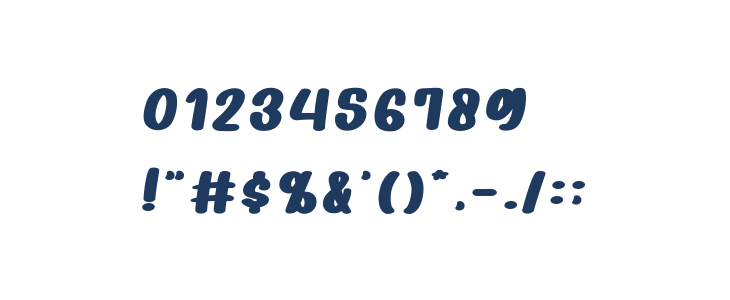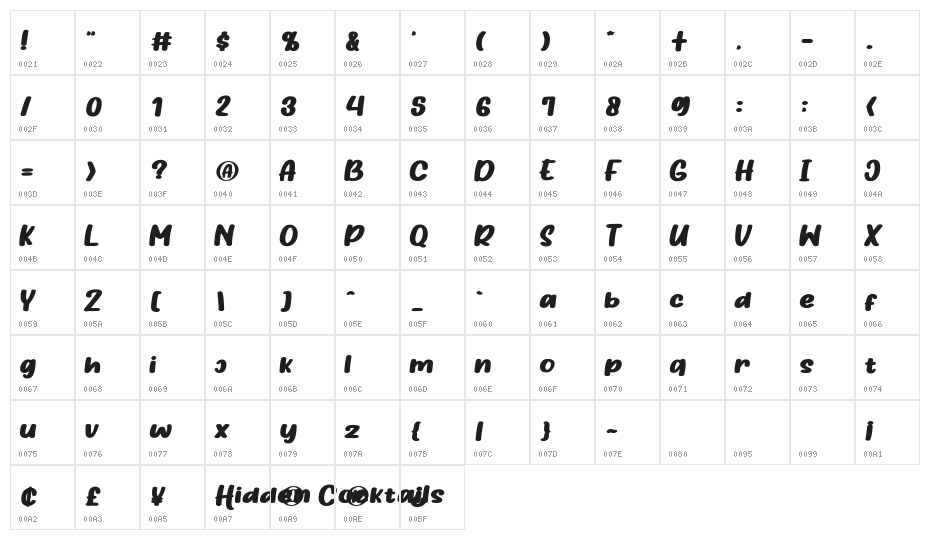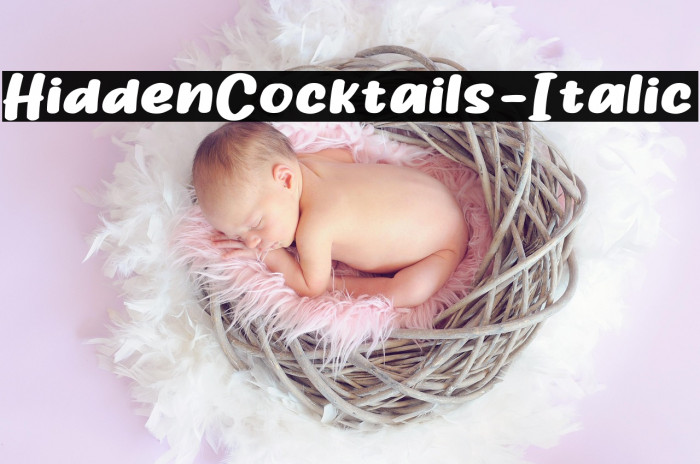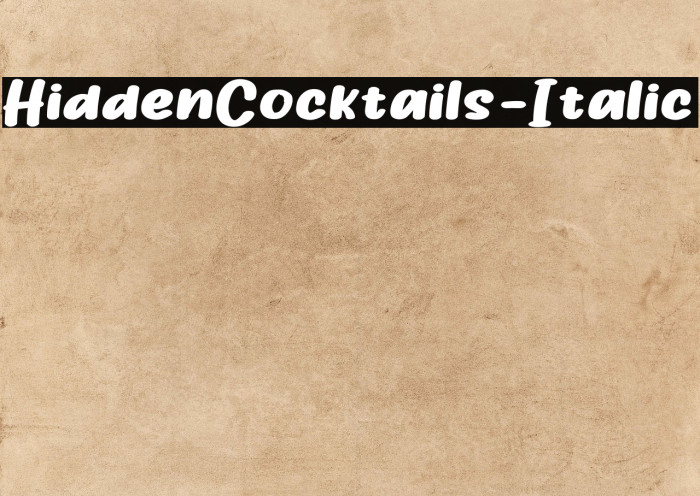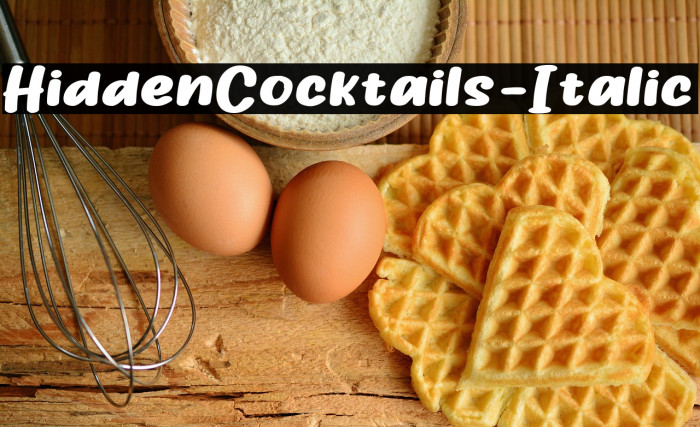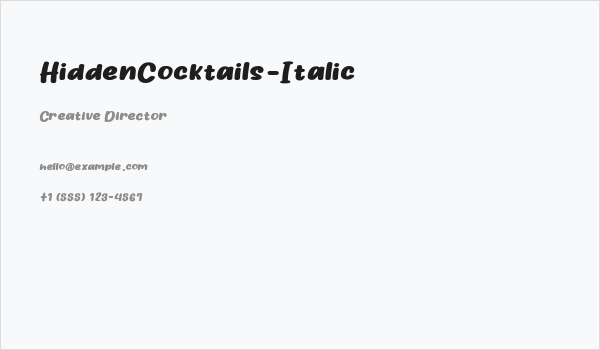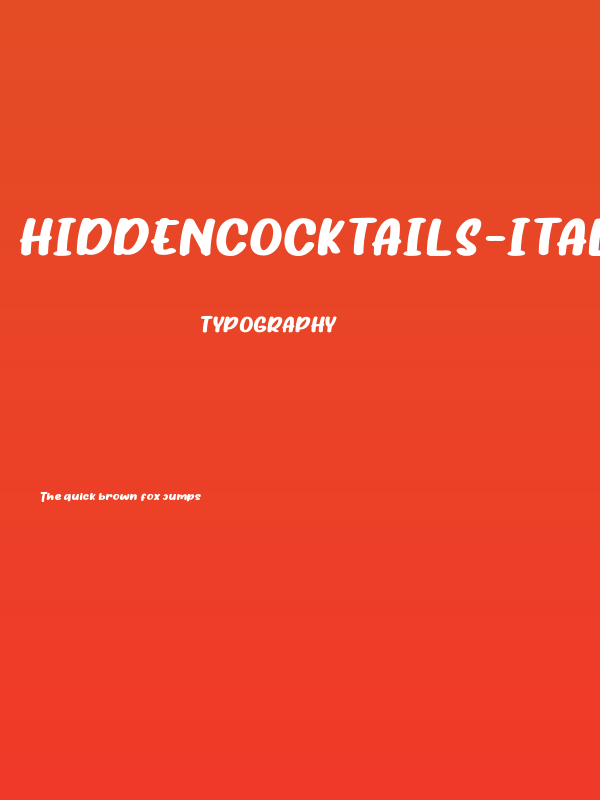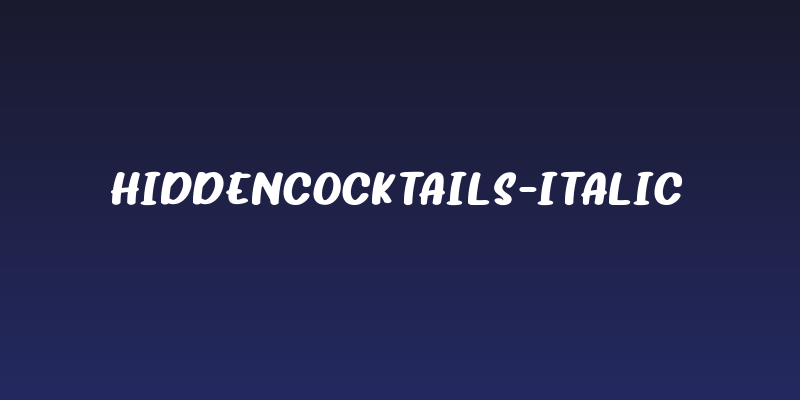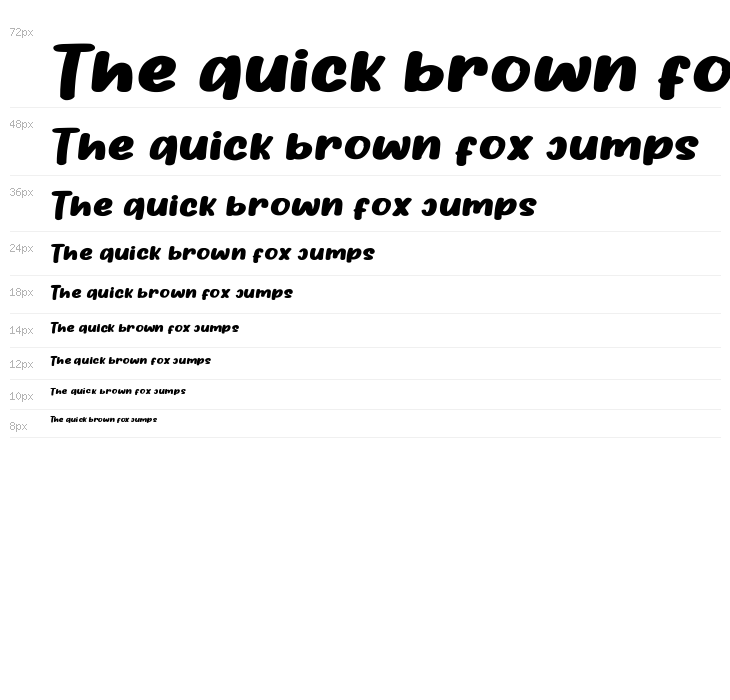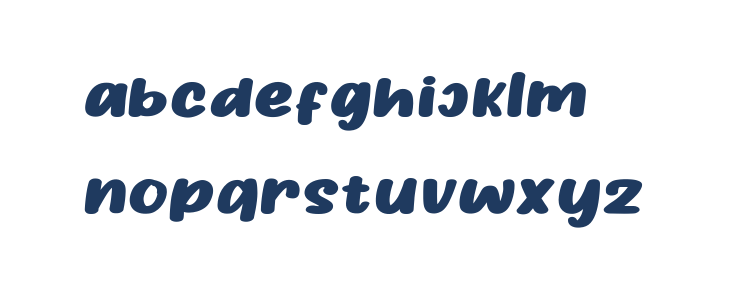
HiddenCocktails-Italic Font
HiddenCocktails-Italic Description
This font features a bold and playful script style with a distinctive italic slant. The characters are rounded and have a smooth flow, giving them a casual and friendly appearance. The uppercase letters are slightly larger and more pronounced, while the lowercase letters maintain a consistent size and shape. The numbers and special characters follow the same playful style, making them easily recognizable and cohesive with the rest of the font. The overall design is modern and energetic, suitable for projects that require a touch of fun and creativity.